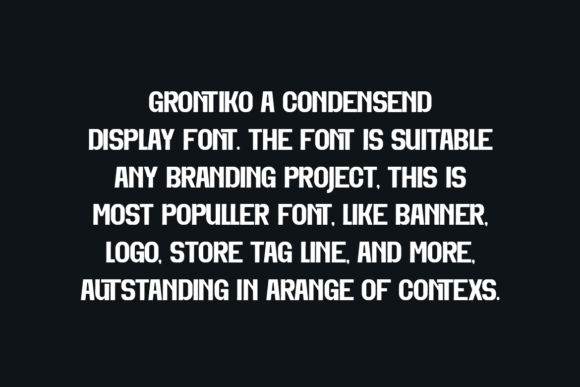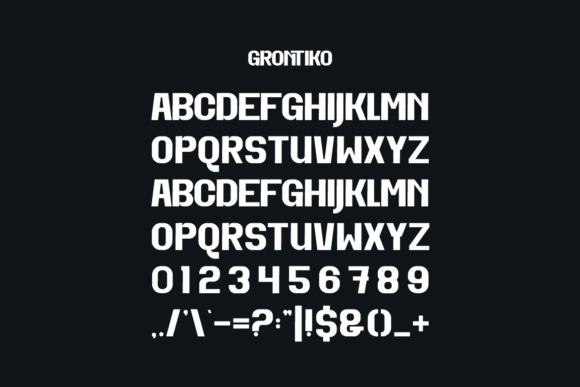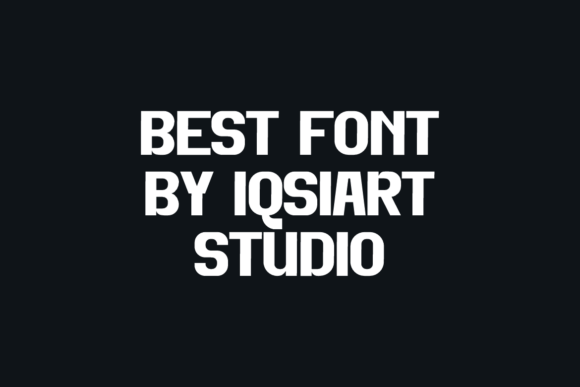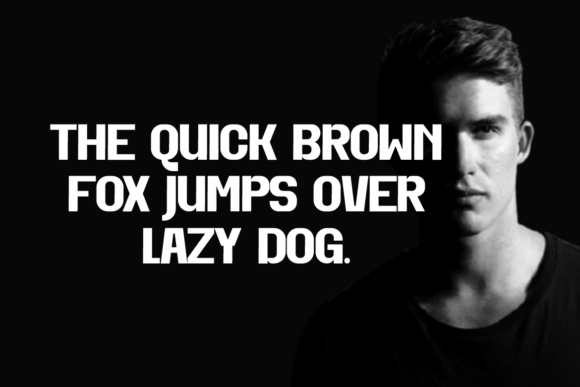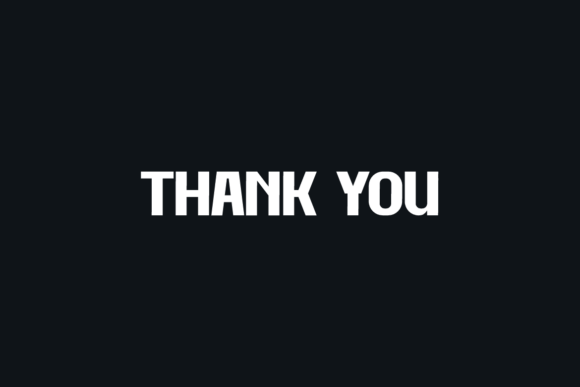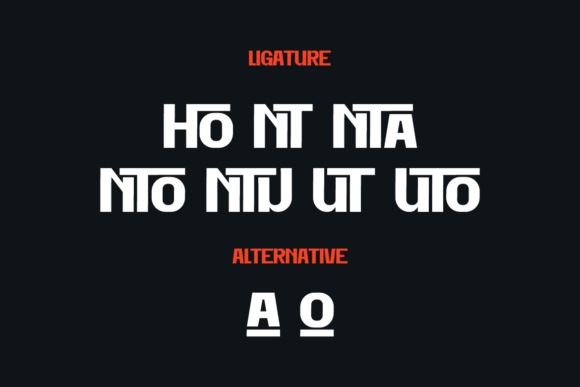
Introducing Grontiko Font: The Ultimate Choice for Bold and Professional Designs
In the world of typography, fonts play a crucial role in conveying the message and tone of a design. For designers and crafters looking for a modern, edgy, and condensed font that makes a maximum impact, Grontiko is the perfect choice. This innovative font is designed to elevate your branding, posters, headlines, and digital media with its clean lines, geometric precision, and unique style.
The Power of Grontiko Font
Grontiko is more than just a font – it’s a statement piece that can make your design stand out from the crowd. Its modern and edgy design makes it perfect for projects that demand a bold and professional aesthetic. Whether you’re working on a branding campaign, creating a poster, or designing a digital media project, Grontiko is the ideal choice. Its condensed style allows for maximum impact, making it perfect for headlines, titles, and short texts.
Clean Lines and Geometric Precision
One of the key features that sets Grontiko apart is its clean lines and geometric precision. The font’s sleek and minimalist design makes it perfect for modern designs that require a touch of sophistication. The geometric precision of Grontiko ensures that every letter and character is perfectly crafted, resulting in a font that is both visually appealing and highly legible.
Ideal for Branding, Posters, and Digital Media
Grontiko is a versatile font that can be used in a variety of design projects. Its bold and professional aesthetic makes it perfect for branding campaigns, posters, and digital media. Whether you’re designing a logo, creating a billboard, or crafting a social media post, Grontiko is the ideal choice. Its condensed style allows for maximum impact, making it perfect for headlines, titles, and short texts.
Unique Style and Versatility
Grontiko’s unique style and versatility make it a standout font in the world of typography. Its modern and edgy design allows it to blend strength and sophistication, making it perfect for projects that demand a bold and professional aesthetic. The font’s versatility ensures that it can be used in a variety of design projects, from branding and posters to digital media and packaging.
Benefits of Using Grontiko Font
• Maximum Impact: Grontiko’s condensed style and bold design make it perfect for headlines, titles, and short texts that demand maximum impact.
• Clean and Geometric: The font’s clean lines and geometric precision make it perfect for modern designs that require a touch of sophistication.
• Versatile: Grontiko can be used in a variety of design projects, from branding and posters to digital media and packaging.
• Professional Aesthetic: The font’s bold and professional aesthetic makes it perfect for projects that demand a high level of sophistication.
How to Use Grontiko Font
Using Grontiko font is easy and straightforward. Here are a few tips to get you started:
• Pair with Other Fonts: Grontiko can be paired with other fonts to create a unique and visually appealing design.
• Use for Headlines and Titles: The font’s condensed style and bold design make it perfect for headlines and titles.
• Experiment with Colors: Grontiko can be used with a variety of colors to create a design that is both visually appealing and effective.
In conclusion, Grontiko font is a modern, edgy, and condensed font that is perfect for designers and crafters looking for a bold and professional aesthetic. Its clean lines, geometric precision, and unique style make it perfect for branding, posters, headlines, and digital media. With its versatility and maximum impact, Grontiko is the ideal choice for projects that demand a high level of sophistication.